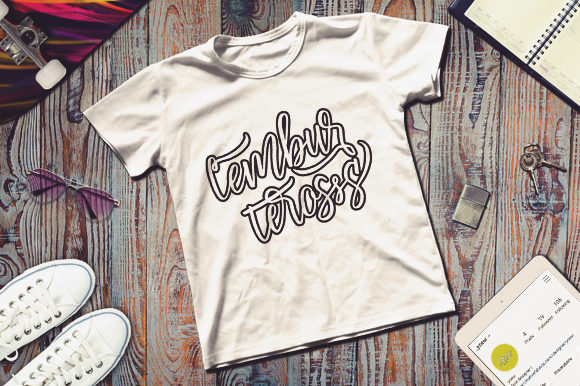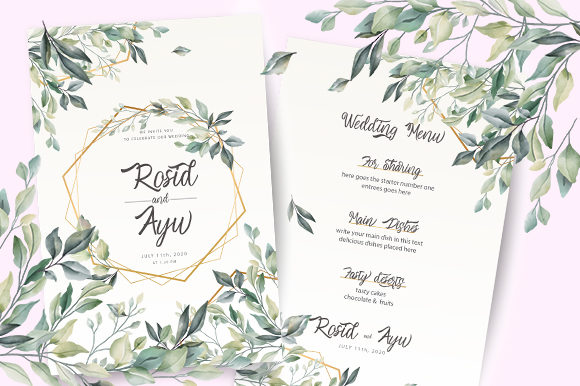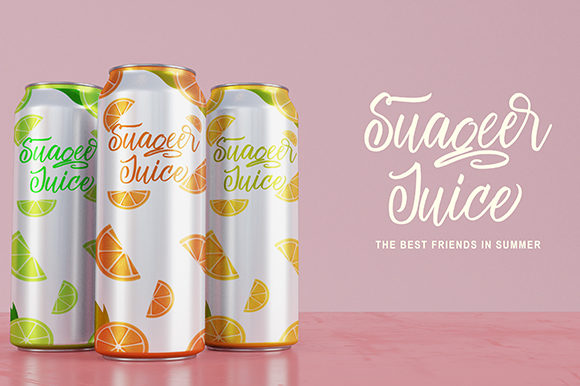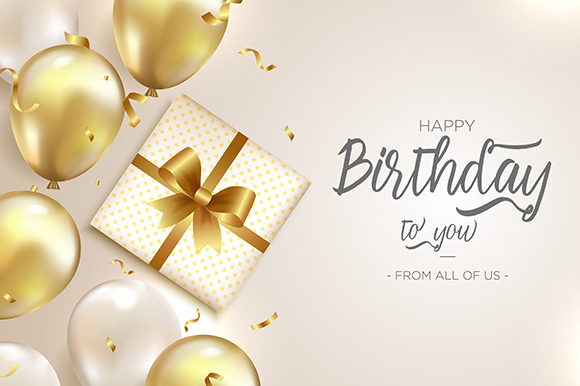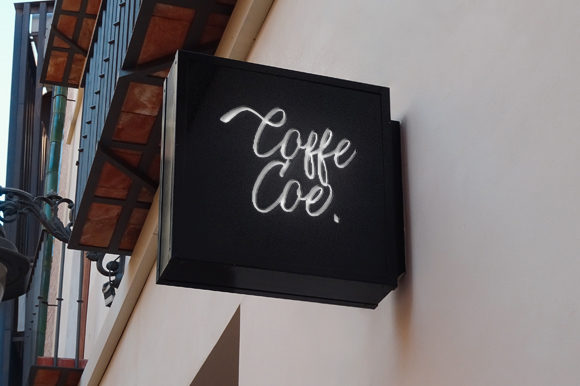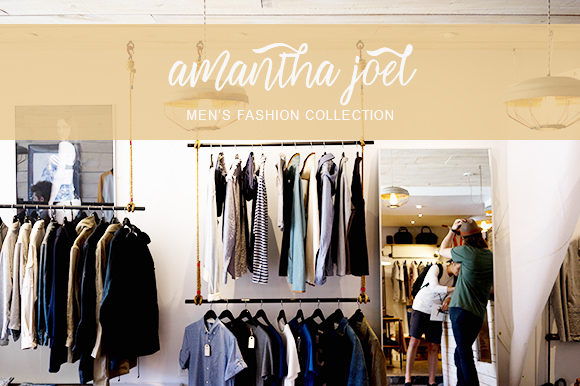
Discover the Elegance of Geulis Font: A Timeless Choice for Designers and Crafters
Are you on the hunt for a font that exudes elegance and sophistication? Look no further than Geulis Font, a stunning flowing handwritten font that is sure to capture your heart. With its incredibly distinct and timeless style, Geulis is the perfect choice for designers and crafters looking to add a touch of refinement to their projects.
The Characteristics of Geulis Font
Geulis Font is a beautifully crafted handwritten font that boasts an elegant touch, making it ideal for a wide range of applications. Its flowing lines and curves create a sense of movement and fluidity, giving your designs a dynamic and eye-catching appeal. Whether you’re working on a logo, branding materials, or digital content, Geulis Font is sure to make a lasting impression.
What Makes Geulis Font Stand Out
So, what sets Geulis Font apart from other fonts on the market? Here are just a few of its standout features:
• Unique and Timeless Style: Geulis Font has a distinct and timeless style that is sure to turn heads. Its elegant lines and curves create a sense of sophistication and refinement, making it perfect for designers and crafters who want to add a touch of luxury to their projects.
• Flowing Handwritten Design: Geulis Font features a flowing handwritten design that is both elegant and approachable. Its fluid lines and curves create a sense of movement and energy, making it perfect for projects that require a dynamic and eye-catching appeal.
• Highly Versatile: Geulis Font is highly versatile and can be used for a wide range of applications, from logos and branding materials to digital content and more.
How to Use Geulis Font in Your Designs
Using Geulis Font in your designs is easy and straightforward. Here are a few tips to get you started:
• Pair it with Other Fonts: Geulis Font pairs well with other fonts, making it easy to create visually appealing and dynamic designs. Try pairing it with a bold sans-serif font for a striking contrast.
• Experiment with Different Sizes: Geulis Font looks great in a variety of sizes, from large headings to smaller body text. Experiment with different sizes to find the perfect fit for your project.
• Use it for Branding and Logo Design: Geulis Font is perfect for branding and logo design, thanks to its unique and timeless style. Use it to create a lasting impression and establish a strong brand identity.
Why Designers and Crafters Love Geulis Font
Designers and crafters love Geulis Font for many reasons. Here are just a few:
• Elegance and Sophistication: Geulis Font exudes elegance and sophistication, making it perfect for designers and crafters who want to add a touch of refinement to their projects.
• Easy to Read: Despite its elegant lines and curves, Geulis Font is easy to read, making it perfect for digital content and other applications where readability is key.
• Highly Customizable: Geulis Font is highly customizable, allowing designers and crafters to tailor it to their specific needs and preferences.
In conclusion, Geulis Font is a stunning flowing handwritten font that is sure to capture your heart. With its incredibly distinct and timeless style, Geulis is the perfect choice for designers and crafters looking to add a touch of elegance and sophistication to their projects. Whether you’re working on a logo, branding materials, or digital content, Geulis Font is sure to make a lasting impression. So why wait? Fall in love with Geulis Font today and take your designs to the next level!